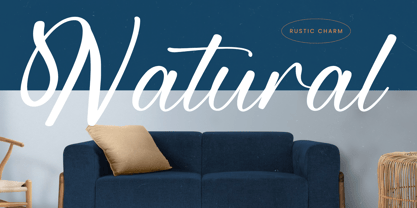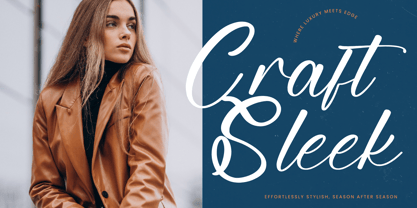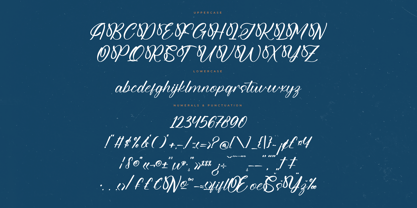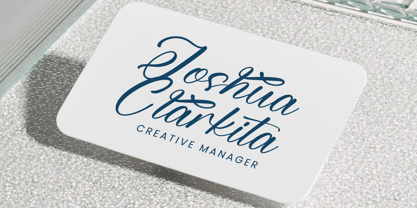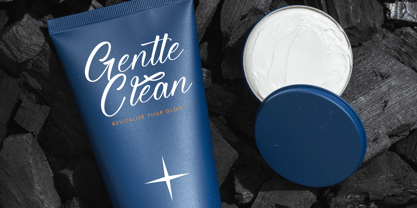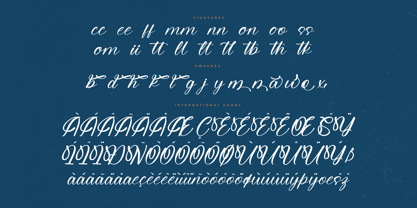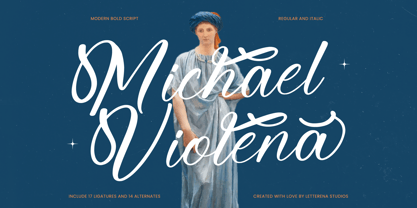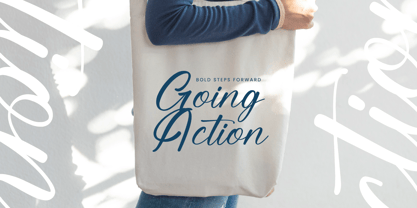
Michael Violena
by Letterena Studios
Michael Violena – Modern Bold Script , from Letterena, is a Luxury Script font, suitable for any projects such as: logos, branding projects, homeware designs, product packaging, mugs, quotes, posters, shopping bags, t-shirts, book covers, name card, invitation cards, greeting cards, label, photography, watermark, special events, and all your other luxury and beautiful projects that need a Luxury Script taste.